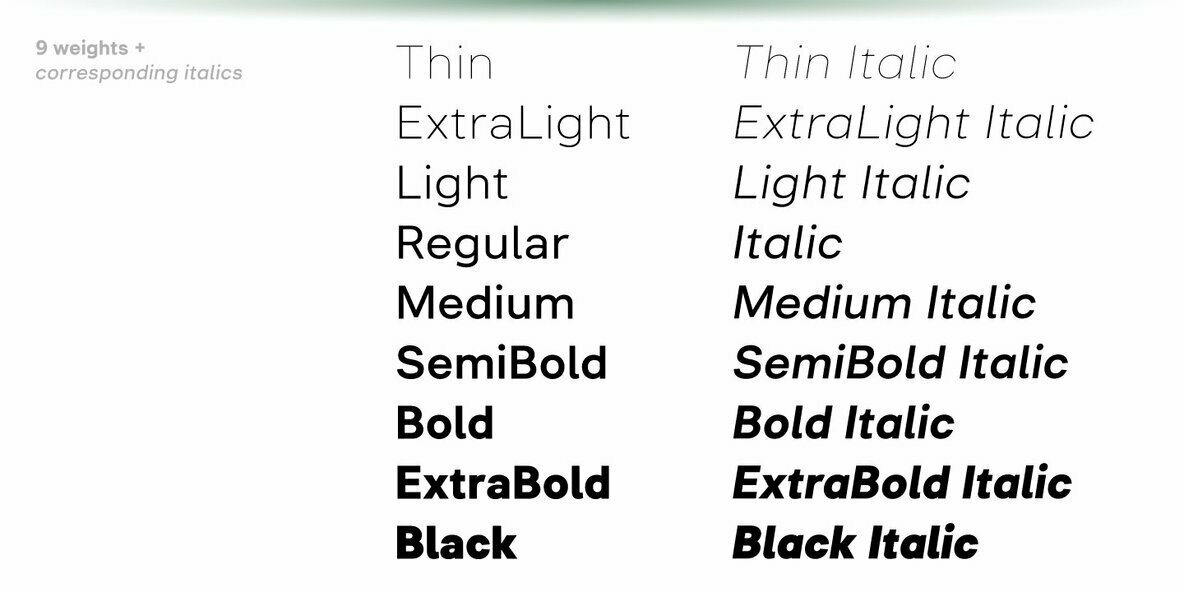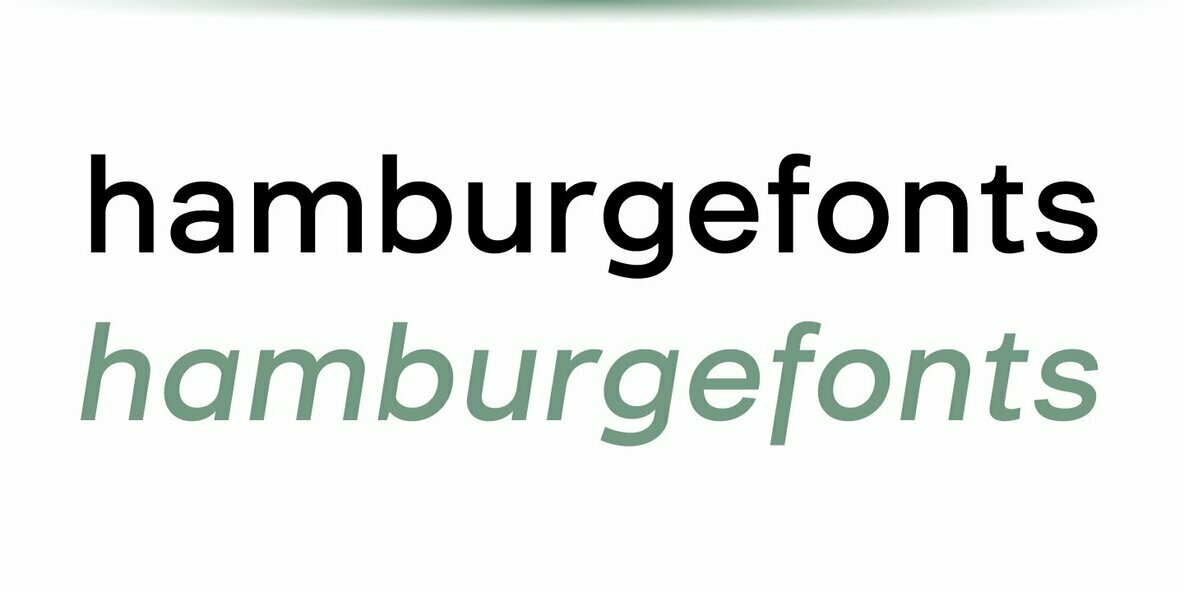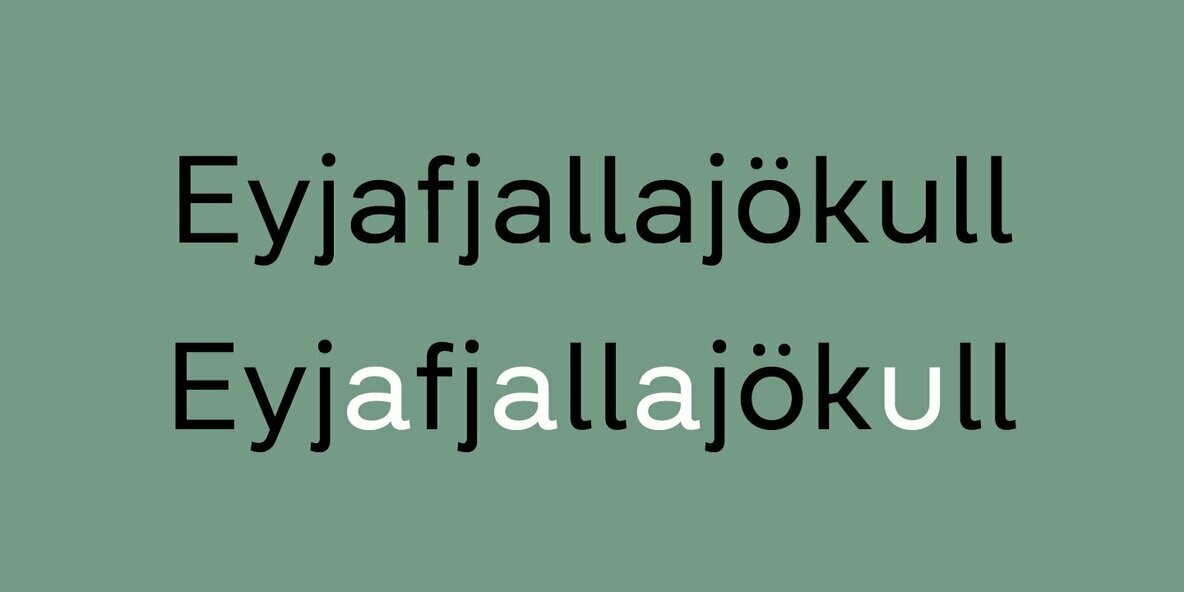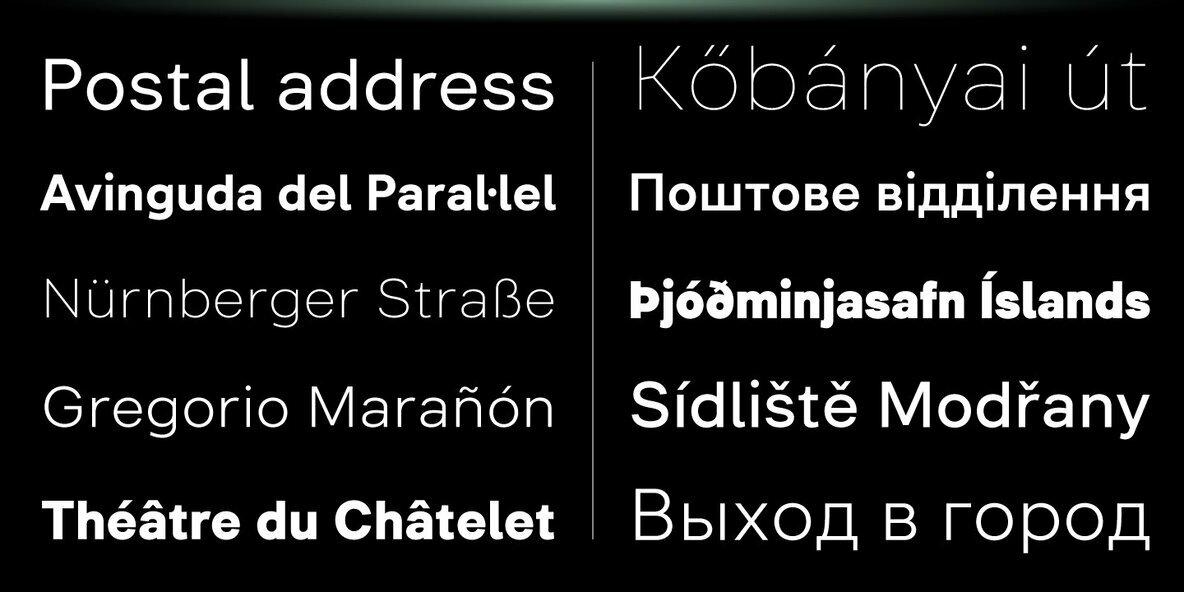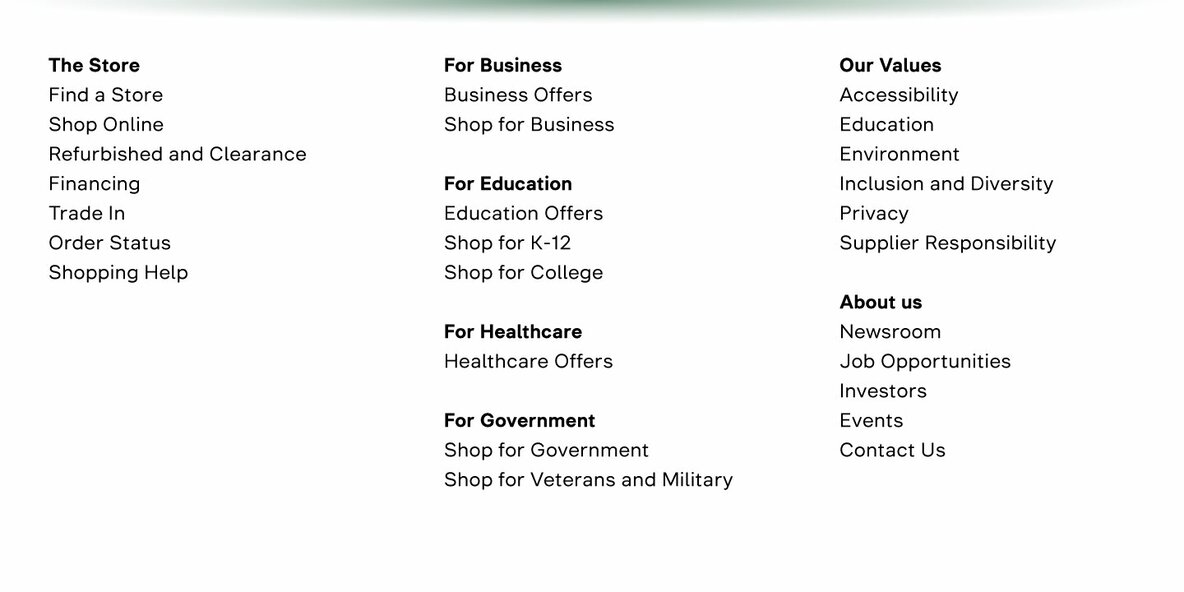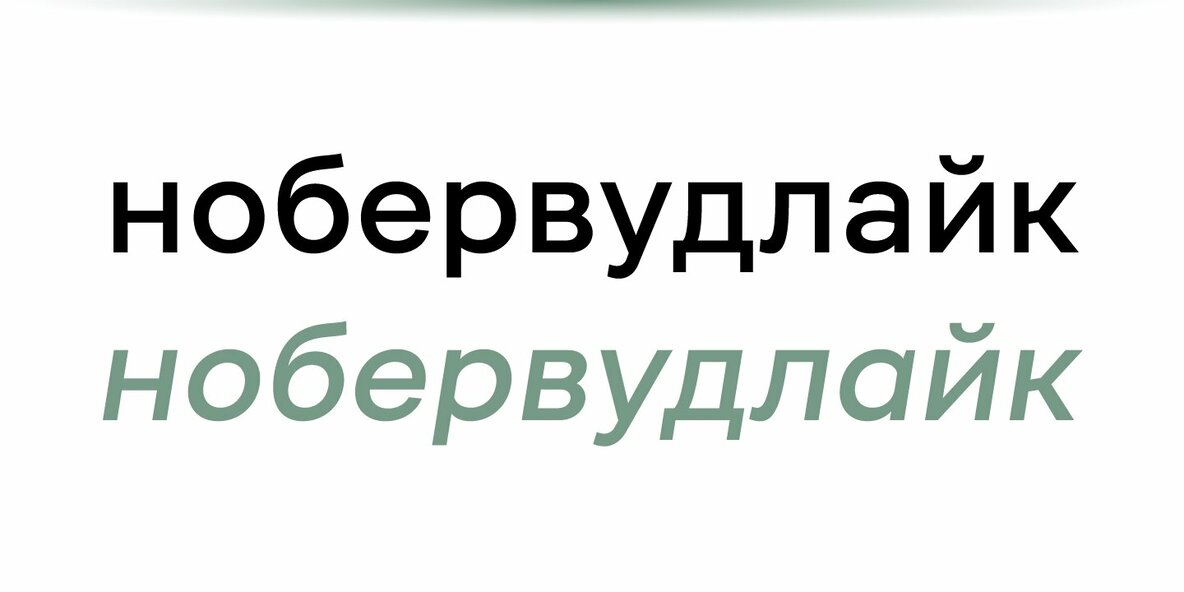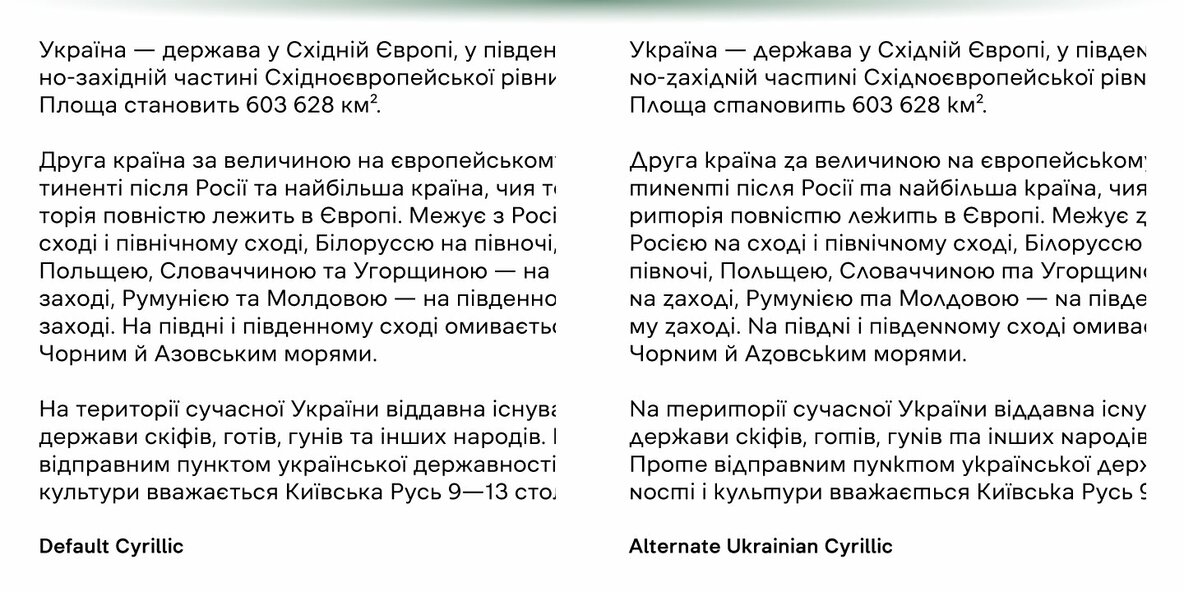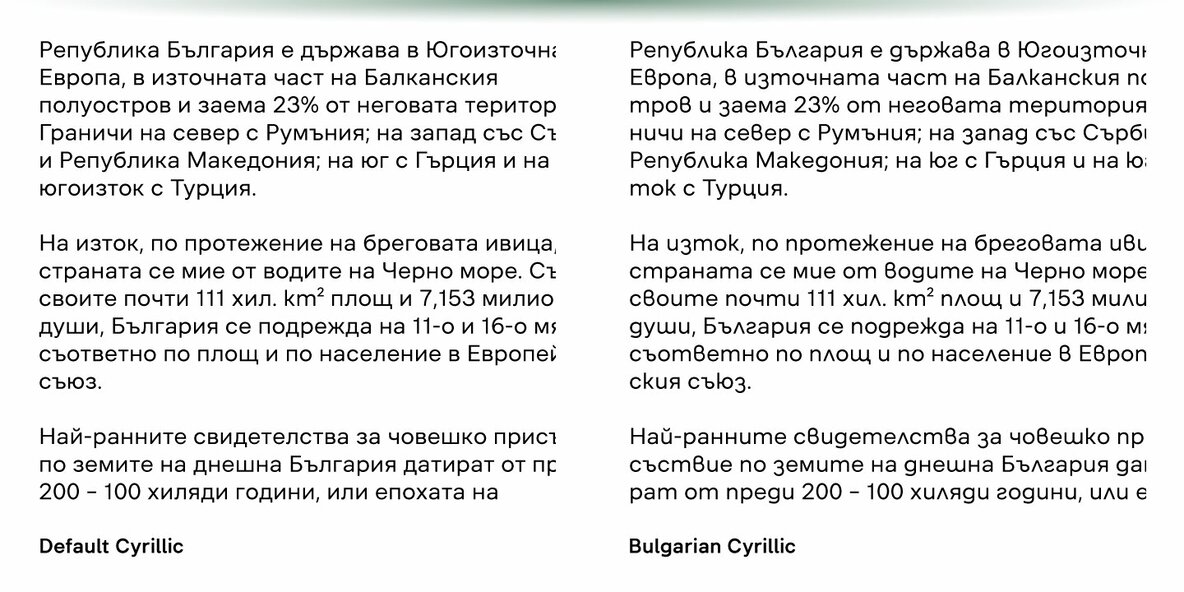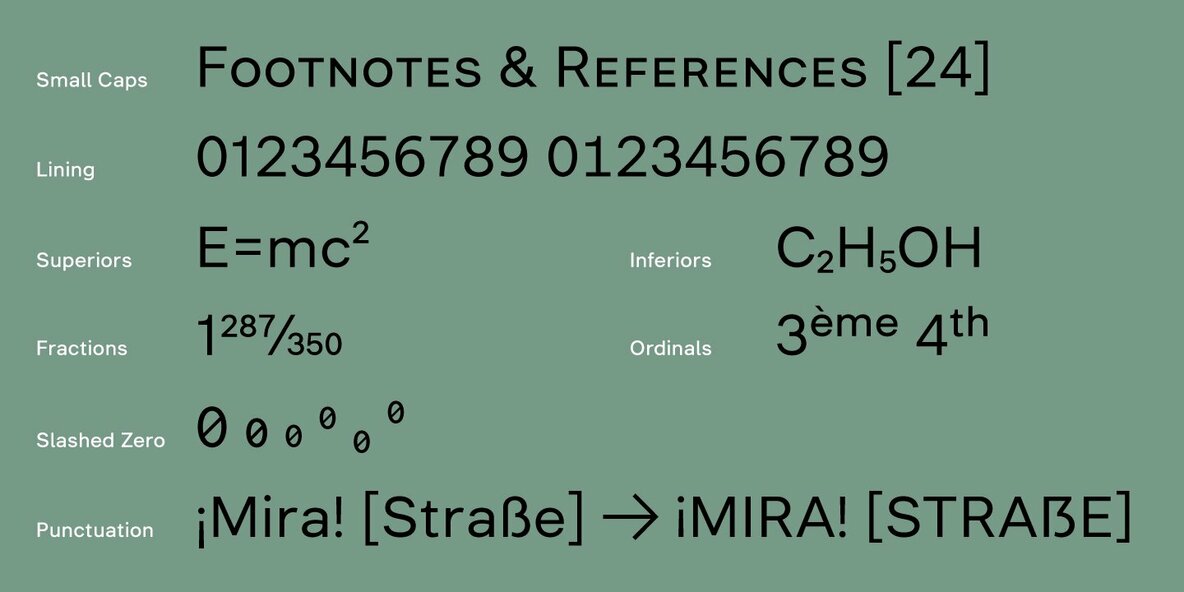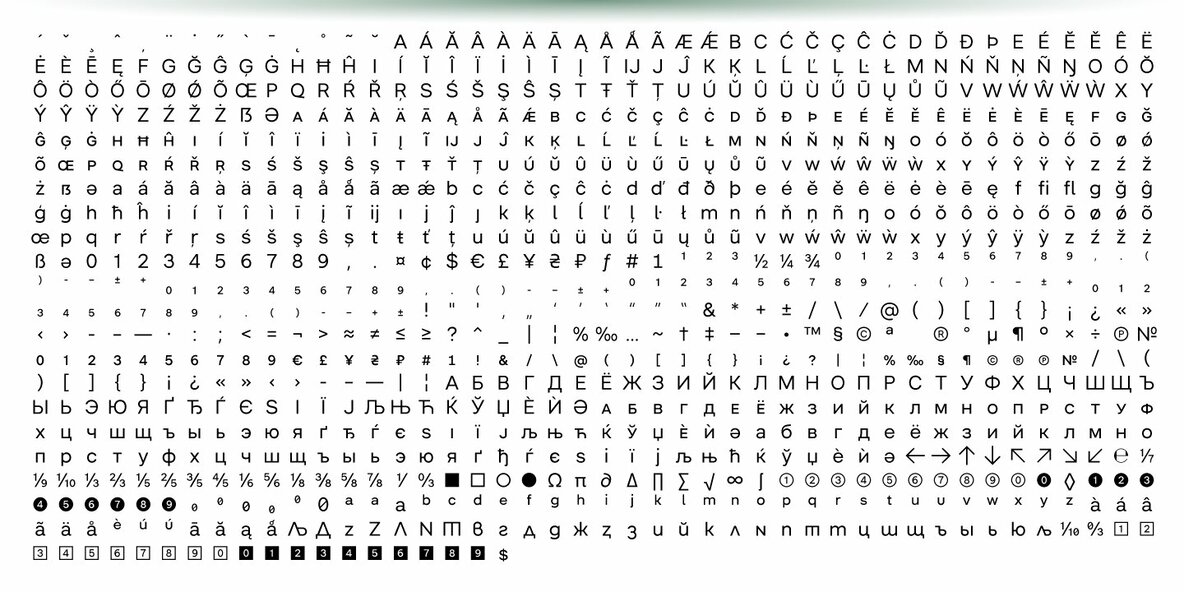
Inerta is a neutral, but not flavourless, cross between a geometric sans and a neo-grotesk. It is designed to work perfectly in UI/UX applications, and to remain readable in smallest font sizes. With over 950 glyphs, the font family offers extensive language support and many typesetting options to choose from.
The typeface can be customised with several sets of alternate glyphs and OpenType features. The Cyrillic part contains alternates for Bulgarian as well as alternative Ukrainian forms.